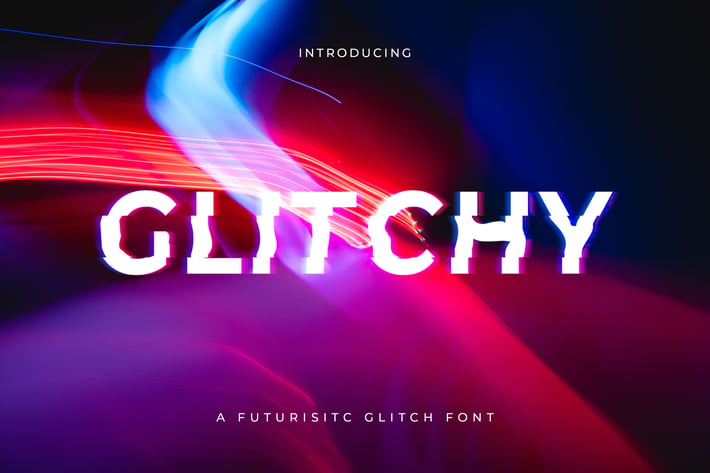
Glitchy - A digital Glitch Font
Introducing Glitchy - A digital glitch effect font.
A Glitch font with a slight cyberpunk feel that is perfect for all kinds of futuristic designs.